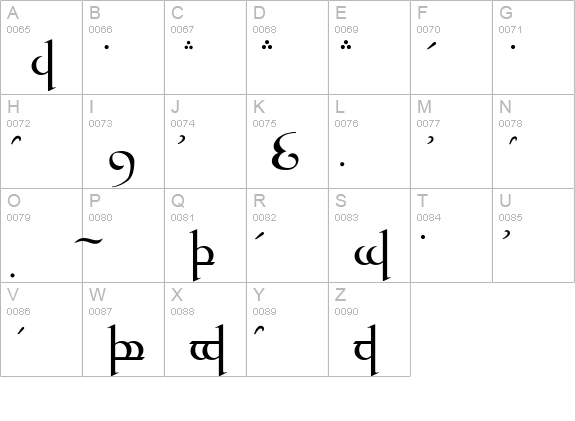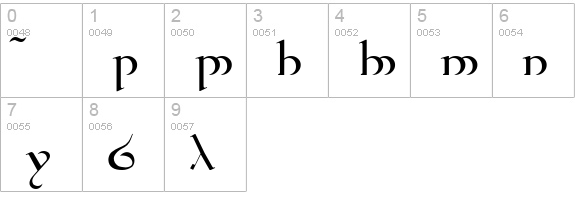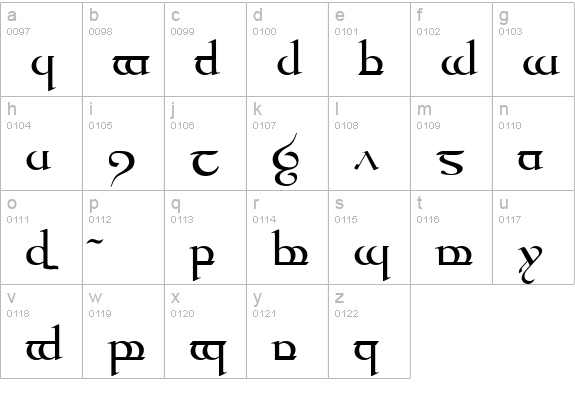
Tengwar Quenya Font Details
Introducing the exquisite Tengwar Quenya font, a mesmerizing creation that captures the essence of the Elvish writing system. Crafted with utmost care and attention to detail, this font beautifully embodies the elegance and mystique of J.R.R. Tolkien's Quenya language. Tengwar Quenya font is a free treasure for all enthusiasts of Tolkien's legendarium. Its meticulously designed characters gracefully flow, as if whispered by the wind itself. Each stroke and curve tells a story, evoking a sense of ancient wisdom and ethereal beauty. Whether you are a devoted Tolkien fan, a linguistics aficionado, or simply captivated by the allure of Elvish scripts, Tengwar Quenya font is a must-have addition to your collection. With its seamless compatibility across various platforms and applications, you can effortlessly incorporate this font into your creative projects, bringing an air of magic and authenticity. The Tengwar Quenya font is freely available to download at FontsMarket.com, the ultimate hub for typography enthusiasts. Embrace the opportunity to elevate your designs with this enchanting font, as it gracefully dances across digital screens or finds its way onto the crisp pages of your printed works. Immerse yourself in the rich heritage of Middle-earth and unlock the power of Tengwar Quenya font. Let your imagination soar as you delve into the intricate world of Elvish calligraphy, conveying messages of love, wisdom, or simply indulging in the sheer beauty of its flowing lines. Download Tengwar Quenya font today from FontsMarket.com, and embark on a journey that transcends the boundaries of language and transports you to a realm where magic and creativity intertwine.